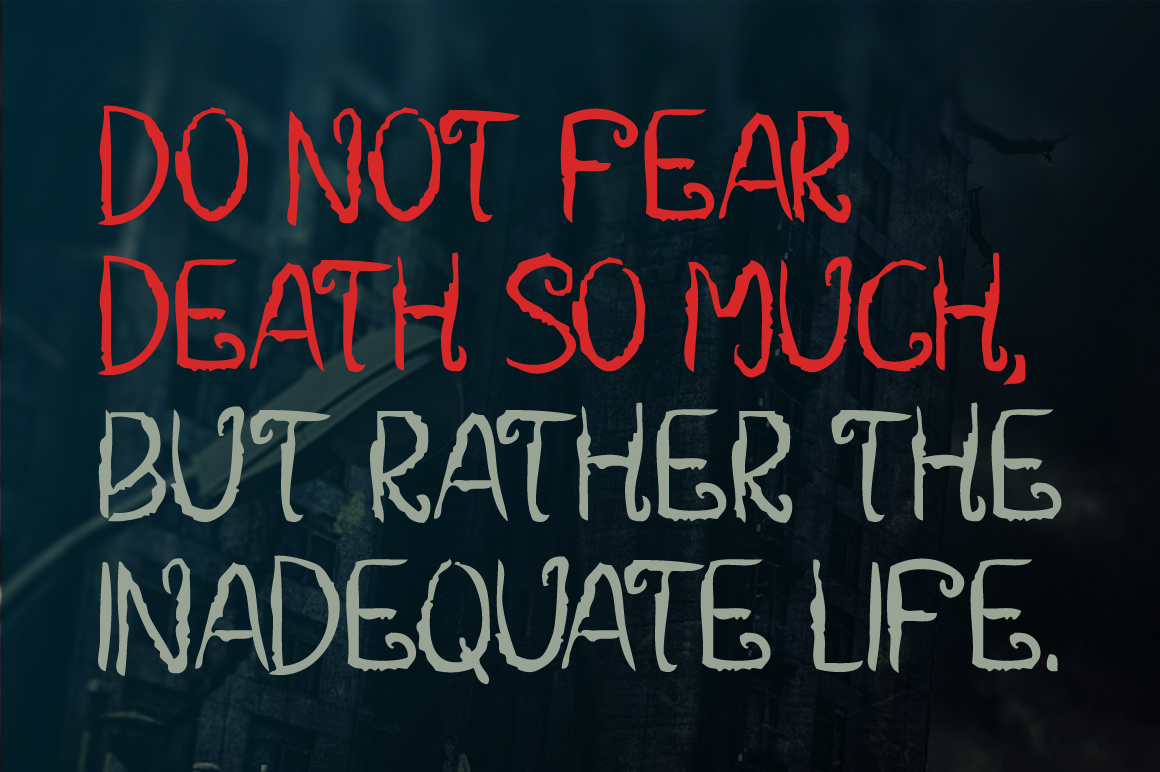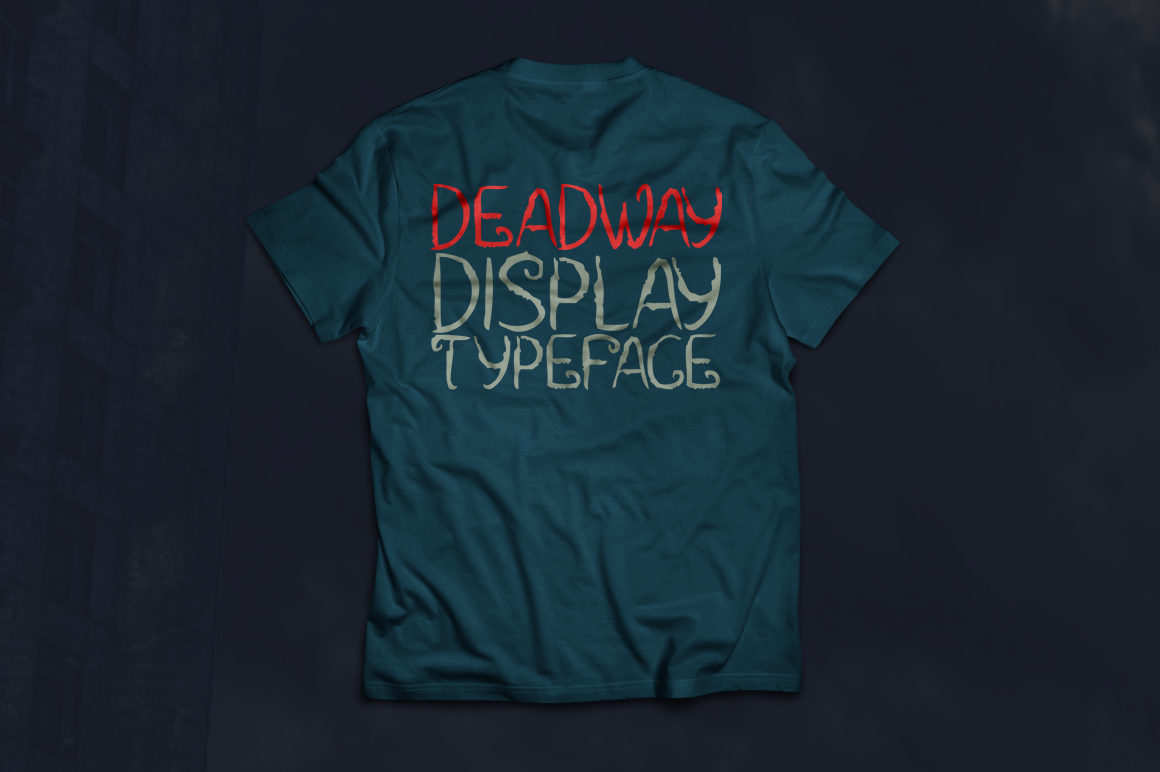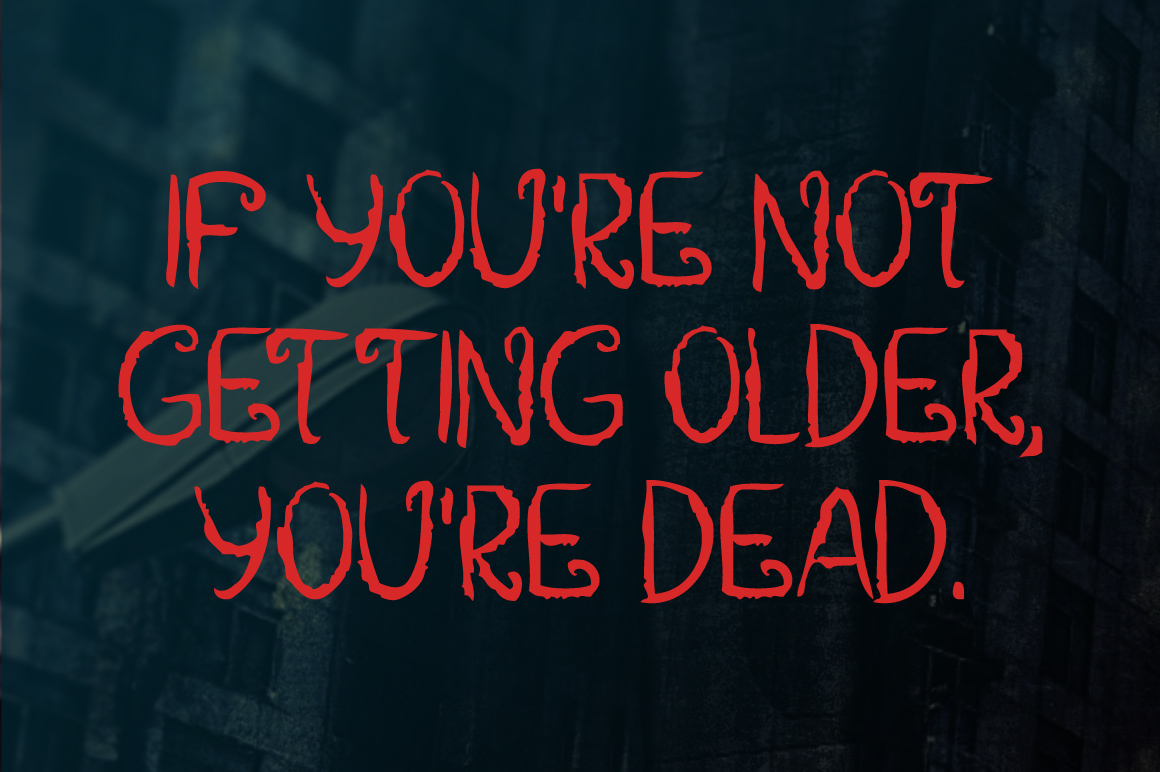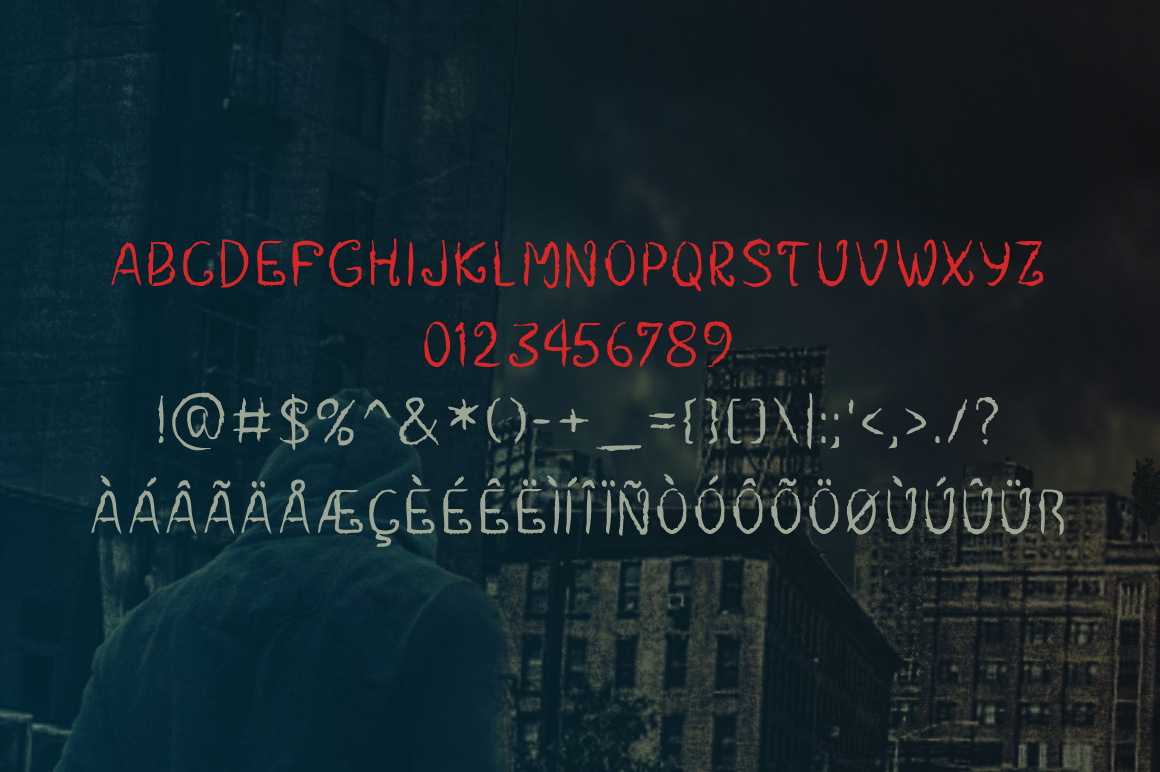
Unleash the Post-Apocalyptic Vibe with Deadway Font
In the realm of typography, fonts play a crucial role in setting the tone and atmosphere of a design. For those who appreciate the unconventional and the bold, the Deadway font is an intriguing addition to your collection. This post-apocalyptic and eerie font is designed to add a rugged edge to your projects, making it perfect for designers and crafters looking to push the boundaries of creativity.
The Unique Charm of Deadway Font
Deadway font stands out with its textured and unique appearance. Unlike conventional fonts that boast smooth lines and perfect curves, Deadway embraces a rugged quality that is both captivating and thought-provoking. Its distressed texture gives it a worn, as-if-survived-apocalypse look that can instantly elevate the aesthetic of your designs. Whether you’re working on a project that requires a sense of grit and realism or simply want to experiment with something new and different, Deadway is an excellent choice.
Key Features of Deadway Font
• Post-apocalyptic Aesthetic: The font’s design is inspired by the desolate landscapes of a world gone through a catastrophic event. This theme can add depth and a story to your designs.
• Eerie and Mysterious: Deadway’s letters seem to whisper tales of a bygone era, bringing an air of mystery and intrigue to any project.
• Textured and Distressed: The font’s texture mimics the look of worn and weathered surfaces, giving your designs a realistic and tactile feel.
• Rugged Quality: The ruggedness of Deadway makes it stand out in a sea of smooth and polished fonts, offering a refreshing alternative for designers looking for something bold.
• Versatility: Despite its strong post-apocalyptic vibe, Deadway can be adapted to various design needs, from branding and posters to digital media and crafts.
Who Can Benefit from Deadway Font?
Deadway font is a versatile tool that can benefit a wide range of designers and crafters:
• Graphic Designers: Looking to add an edge to their branding, advertising, or editorial projects.
• Digital Artists: Seeking unique typography for their artwork, animations, or digital illustrations.
• Crafters: Working on DIY projects, scrapbooking, or any form of paper crafting that could use a distinctive touch.
• Game Developers: Needing fonts that fit a post-apocalyptic game setting or any project requiring a distinctive, bold typography.
Tips for Using Deadway Font Effectively
To make the most out of Deadway font, consider the following tips:
• Pair with Complementary Fonts: Use Deadway as a headline font and pair it with simpler fonts for body text to create visual hierarchy and balance.
• Experiment with Colors: The rugged texture of Deadway looks great with metallic colors, dark tones, or even vibrant hues for a striking contrast.
• Consider the Context: Ensure that the use of Deadway aligns with the message and tone of your project. Its strong post-apocalyptic vibe can be a powerful statement.
Deadway font is more than just a collection of letters; it’s an experience. It brings a narrative of survival, resilience, and the raw beauty of a world pushed to its limits. For designers and crafters looking to infuse their work with a sense of drama, mystery, and boldness, Deadway is an invaluable resource. Don’t miss out on the opportunity to explore new dimensions of creativity with Deadway font. Whether you’re a seasoned professional or a hobbyist, this intriguing font is sure to leave a lasting impression on your designs and the people who see them.